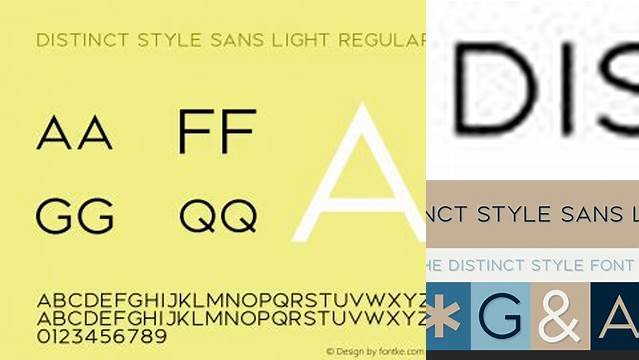
Distinct Style Sans Light Font: Free Download Guide
Hey guys! Ever been on the hunt for that perfect font that screams both modern and approachable? Look no further! Today, we're diving deep into the world of distinct style sans light fonts and, more importantly, how you can snag them for free. We'll cover everything from what makes a sans-serif light font so special to where you can find some awesome freebies. So, buckle up and let’s get font-astic!
What Makes a Distinct Style Sans Light Font Special?
When it comes to typography, the choices are endless, but a distinct style sans light font truly stands out. But what makes it so special? Well, several factors contribute to its unique appeal. First off, the “sans” in sans-serif means “without serifs,” those little decorative strokes at the ends of letters. This gives the font a cleaner, more modern look compared to serif fonts like Times New Roman. Now, when you add the “light” weight, you get an even more delicate and airy feel. This combination is perfect for designs that aim to be both elegant and easily readable. The lightness reduces visual clutter, making it great for body text, headlines, and even logos. Think minimalist designs, clean websites, and sophisticated branding – that’s where a distinct style sans light font really shines. The beauty of these fonts lies in their versatility; they can be used in a variety of contexts, from digital interfaces to print materials. Whether you’re designing a website, creating marketing materials, or even working on a personal project, a well-chosen sans light font can elevate your work and give it a touch of modern sophistication. So, if you’re aiming for a sleek and contemporary look, exploring distinct style sans light fonts is definitely the way to go. Plus, finding one that perfectly matches your vision can be super rewarding, adding that extra layer of polish to your project.
Best Sans Light Fonts for Headlines
When it comes to grabbing attention, your headline font is your secret weapon. A distinct style sans light font can be a fantastic choice for headlines, especially if you're aiming for a modern, clean, and sophisticated look. The lightness adds an airy feel, making your headlines stand out without being overly bold or aggressive. One standout option is Lato. It’s a widely popular sans-serif font that’s known for its readability and elegant appearance. The light weight is perfect for headlines, offering a subtle yet impactful presence. Montserrat is another great contender. This geometric sans-serif font has a contemporary feel and comes in various weights, with the light version being a superb choice for headlines. It's clean, modern, and highly versatile, making it suitable for a wide range of projects. If you're looking for something a bit more unique, consider Raleway. This elegant sans-serif font features a distinctive